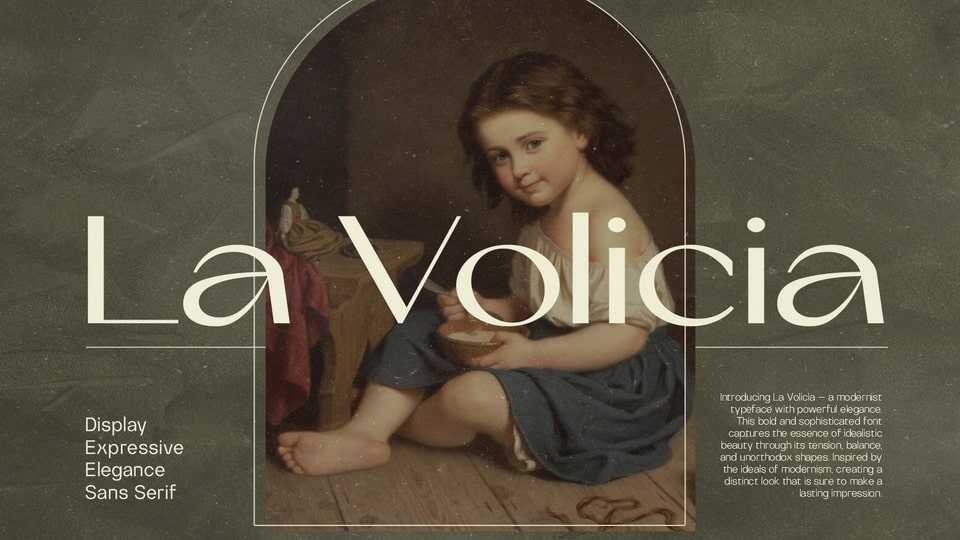
Download La Volicia font, a modernist typeface with powerful elegance. This bold and sophisticated font captures the essence of idealistic beauty through its tension, balance, and unexpected shapes.
Designer: Prominent Affluent